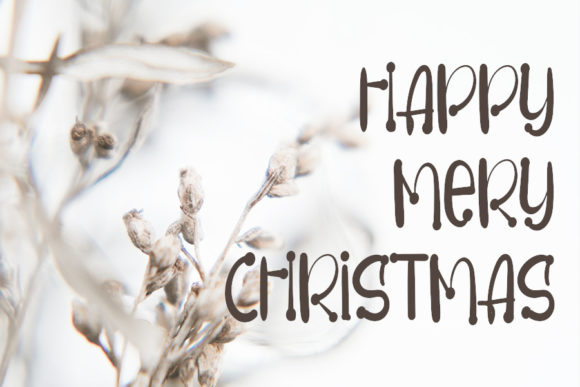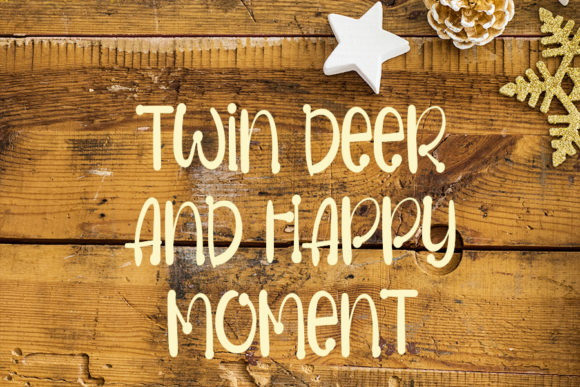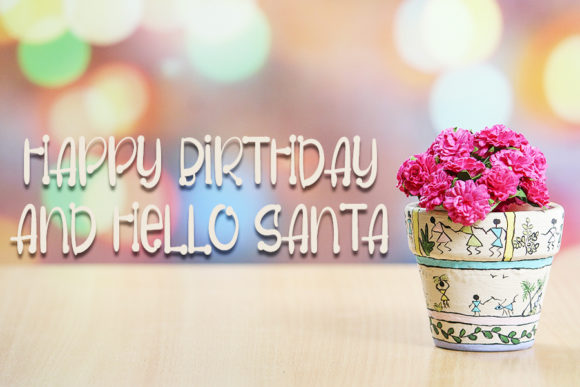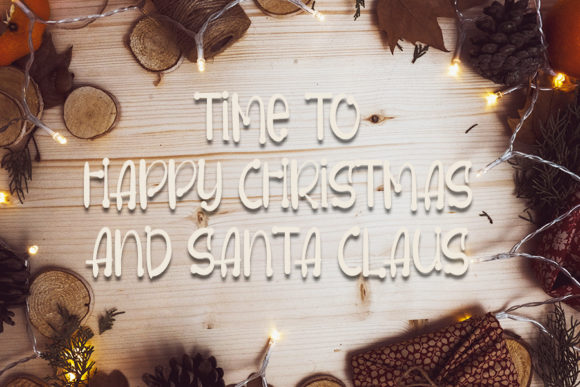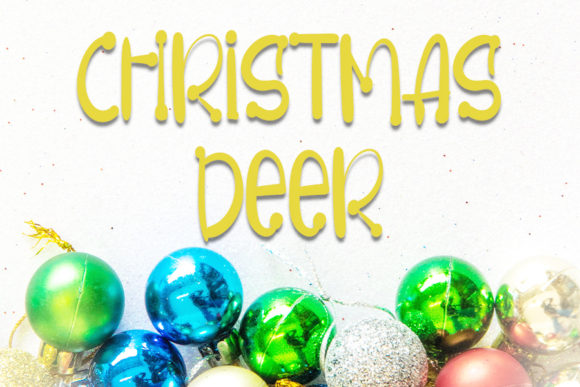
Introducing Christmas Deer Font: The Ultimate Holiday Display Font
Are you looking for a font that captures the essence of Christmas and adds a touch of whimsy to your designs? Look no further than Christmas Deer Font! This adorable display font is perfect for designers and crafters who want to create joyful and festive projects that showcase the magic of the holiday season.
What Makes Christmas Deer Font So Special?
Christmas Deer Font is a cute and joyful display font that is sure to become your top choice for all your holiday design needs. Its trendy and sweet design makes it perfect for a variety of projects, from Christmas cards and invitations to holiday-themed crafts and decorations. The font’s playful and carefree vibe is sure to bring a smile to anyone’s face, making it an excellent choice for designers and crafters who want to create fun and engaging projects.
Key Features of Christmas Deer Font
- Cute and Joyful Design: Christmas Deer Font features a unique and adorable design that is sure to capture the essence of Christmas.
- Trendy and Sweet: The font’s trendy and sweet design makes it perfect for a variety of projects, from modern and sleek designs to more traditional and vintage-inspired projects.
- Easy to Read: Despite its playful design, Christmas Deer Font is easy to read, making it perfect for use in titles, headings, and other display text.
- Versatile: Christmas Deer Font can be used for a wide range of projects, from digital designs to print projects, and from holiday cards to craft tutorials.
Christmas Deer Font is an excellent choice for designers and crafters who want to add a touch of holiday cheer to their projects. Whether you’re creating Christmas cards, holiday-themed crafts, or festive decorations, this font is sure to be a hit. Its playful and joyful design makes it perfect for a variety of projects, including:
- Christmas cards and invitations
- Holiday-themed crafts and decorations
- Festive digital designs, such as social media graphics and blog posts
- Holiday-themed party decorations and invitations
- Use it as a display font to add a touch of holiday cheer to your projects
- Pair it with other fonts to create a unique and eye-catching design
- Experiment with different colors and textures to add depth and interest to your projects
Get Creative with Christmas Deer Font
Christmas Deer Font is a versatile and fun font that is sure to inspire your creativity. Here are a few ideas to get you started:
- Create a festive holiday card or invitation
- Design a holiday-themed craft or decoration, such as a wreath or garland
- Make a festive digital design, such as a social media graphic or blog post
- Host a holiday party and use the font to create festive decorations and invitations